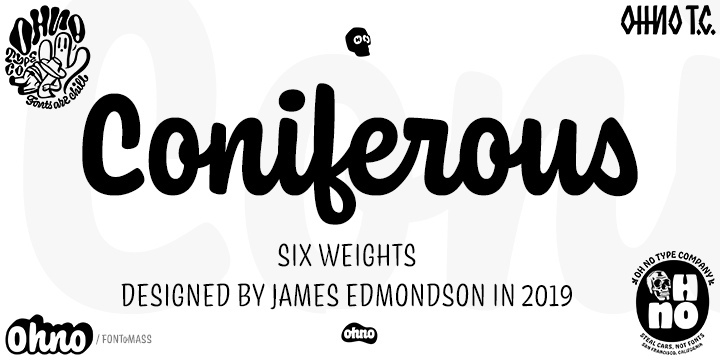
Coniferous Font
Coniferous Font is perfect for outdoor adventure branding, forest conservation campaigns, nature-inspired logos, eco-friendly product packaging, wilderness tourism marketing, camping equipment graphics, environmental organization materials, sustainable lifestyle branding, natural food labels, and organic wellness communications.
What makes Coniferous Font so exciting is its natural strength that captures the enduring resilience and majestic beauty of evergreen forests while maintaining contemporary functionality and professional appeal. This organic typeface embodies natural durability and environmental harmony, creating typography that connects audiences with the timeless wisdom and steadfast strength of nature.
The Coniferous Font family includes light, regular, medium, bold, and black weights, complete with nature-inspired design features, organic styling elements, and forest-themed characteristics that provide designers with comprehensive tools for creating authentic and memorable typography that celebrates the enduring beauty of natural environments.
Experience natural resilience with Coniferous Font Free Download, a beautifully crafted typeface that brings the enduring strength and organic beauty of evergreen forests to contemporary design projects. This exceptional font embodies the perfect fusion of natural authenticity and professional quality, making it an ideal choice for brands that celebrate environmental stewardship and the timeless appeal of natural living.
The organically structured letterforms of Coniferous Font showcase natural elegance with forest-inspired character that creates instant recognition of environmental authenticity and sustainable quality. Each character displays careful attention to maintaining the organic strength that defines natural durability while ensuring contemporary readability and professional versatility. The font's natural construction and forest-inspired spacing contribute to its authentic appearance and environmental appeal.
Environmental brands and nature-focused organizations consistently choose Coniferous Font for projects requiring natural authenticity and sustainable sophistication. The comprehensive character set includes uppercase and lowercase letters, numerals, extensive punctuation, international accents, and nature-inspired elements that provide complete support for environmental branding applications and organic design compositions.
The natural versatility of Coniferous Font ensures exceptional performance across both traditional print and modern digital platforms. Whether developing eco-friendly brand identities, creating nature conservation materials, or designing sustainable marketing campaigns, this remarkable typeface delivers consistent authenticity that resonates with audiences seeking environmental responsibility and natural harmony.